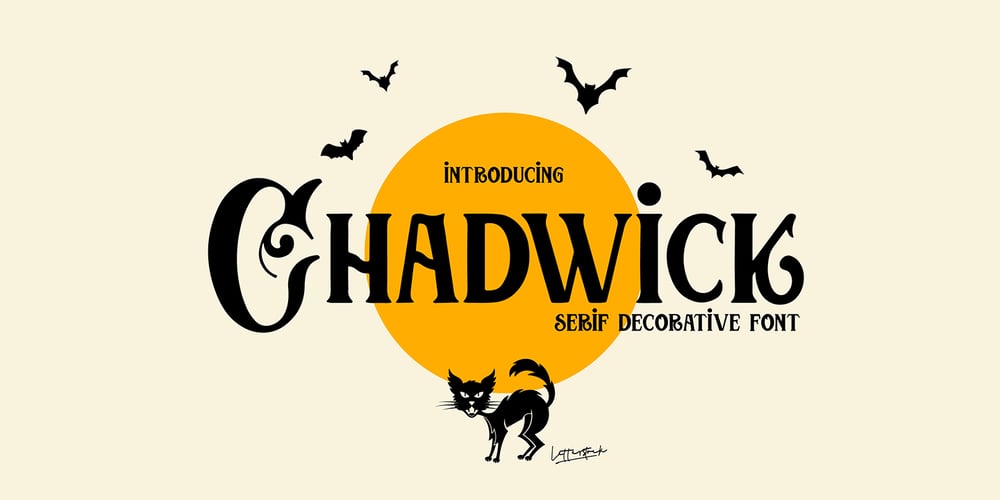
Chadwick
Chadwick font
Chadwick Font Family was designed by Studio LetterStock and published by LetterStock. Chadwick contains 1 styles and family package options. **Chadwick Font**This pair was inspired by the grest poster design that i saw on some coffee shop, It was crafted by hand specially to add natural handmade feeling in its brand identity than i make it clean with pentool.**Opentype features**Chadwick font has 167 character set included Chadwick Font is very good looking in logo, labels, t-shirt prints, product packaging, invitations, advertising and others.**What includes*** ChadwickTTF file* Chadwick OTF file* ChadwickWOFF file* Multilingual support (Western European characters).This fonts works with folowing languages: Afrikaans, Albanian, Asu, Basque, Bemba, Bena, Chiga, Cornish, Danish, English, Estonian, Filipino, Finnish, French, Friulian, Galician, Gusii, Indonesian, Irish, Italian, Kabuverdianu, Kalenjin, Kinyarwanda, Low German, Luo, Luxembourgish, Luyia, Machame, Makhuwa-Meetto, Makonde, Malagasy, Malay, Manx, Morisyen, North Ndebele, Norwegian Bokmål, Norwegian Nynorsk, Nyankole, Oromo, Portuguese, Romansh, Rombo, Rundi, Rwa, Samburu, Sango, Sangu, Scottish Gaelic, Sena, Shambala, Shona, Soga, Somali, Spanish, Swahili, Swedish, Swiss German, Taita, Teso, Vunjo, Zulu.Thank you for using this font.LS